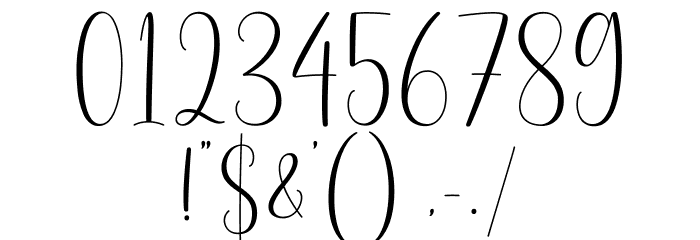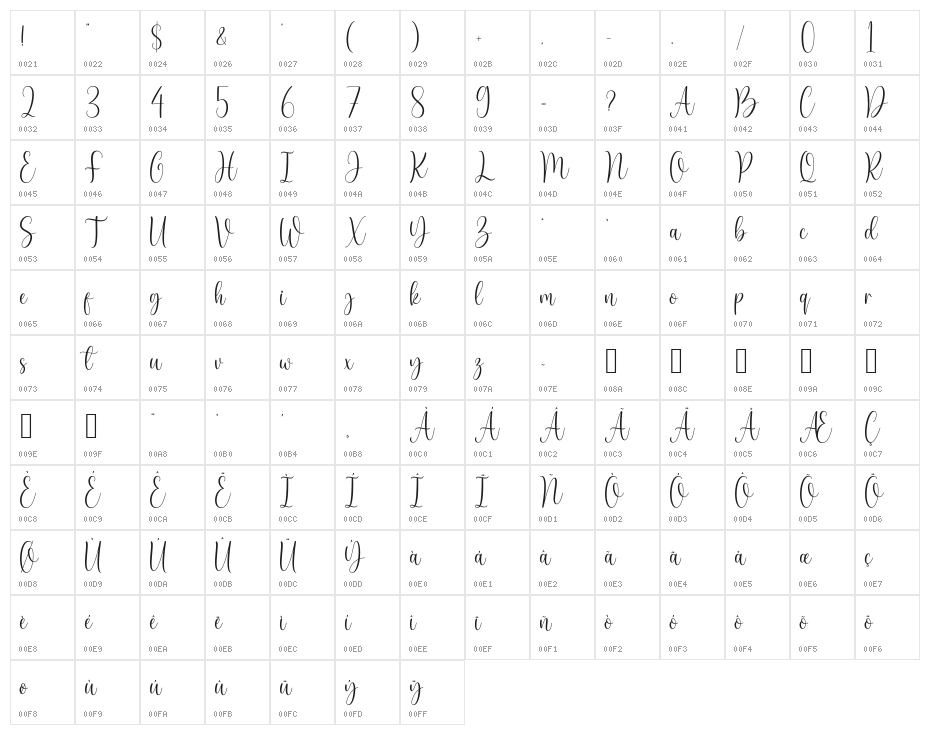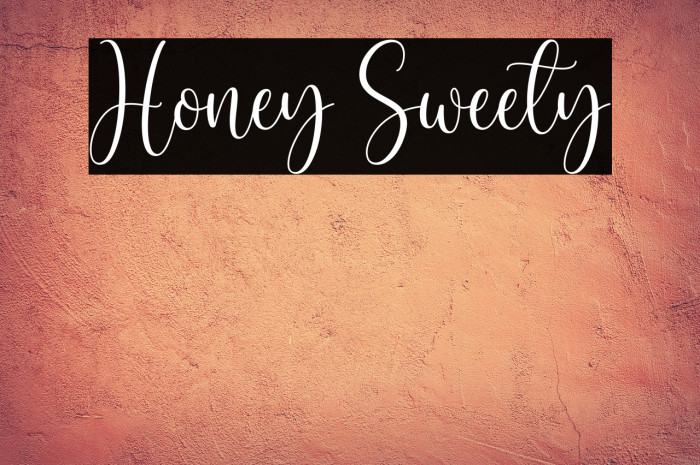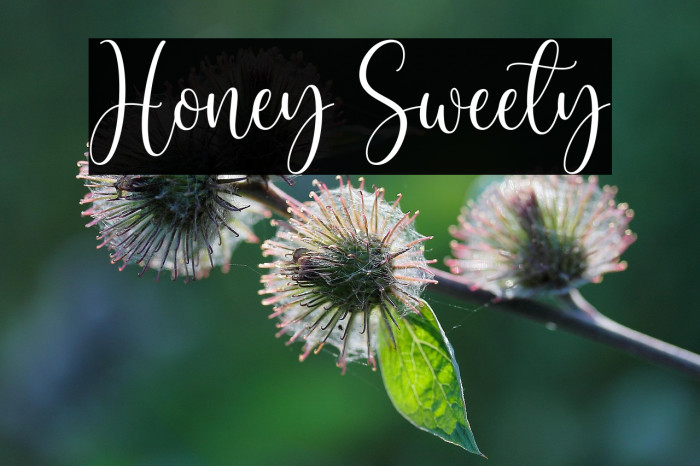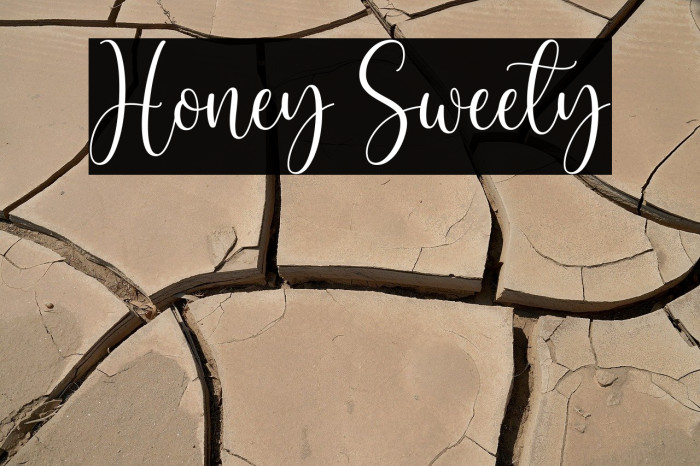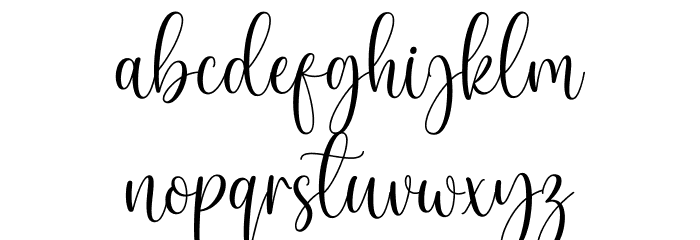
Honey Sweety Font
Honey Sweety Description
This elegant script font features a flowing, cursive style with beautifully crafted loops and swirls. The uppercase letters are particularly ornate, with a graceful, sweeping design that adds a touch of sophistication. The lowercase letters maintain a consistent flow, making the text appear seamless and connected. The numerals are tall and slender, complementing the overall aesthetic. Special characters are designed with the same attention to detail, ensuring a cohesive look throughout. This font exudes a sense of elegance and charm, perfect for projects that require a personal, handwritten touch.